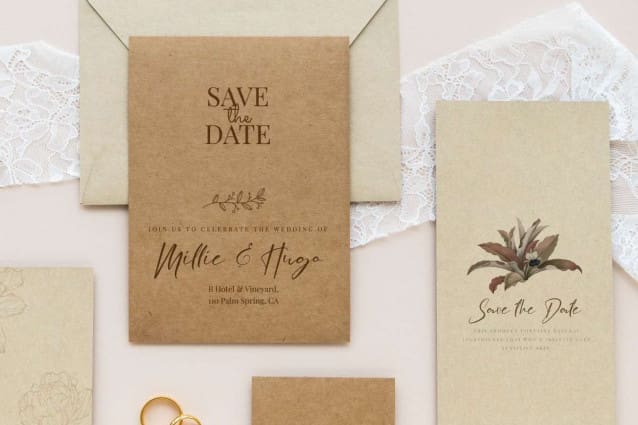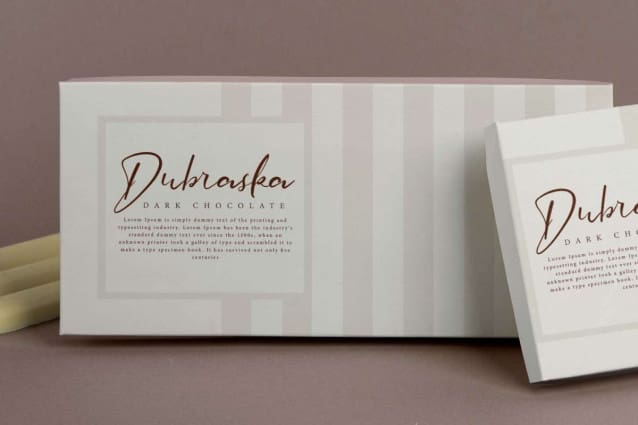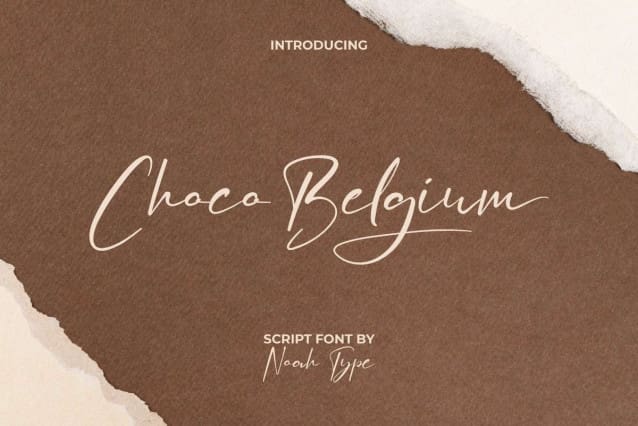
Choco Belgium Font
Choco Belgium Font, is a stylish handwriting script font with professional signature style. The strokes lines in this font look natural and beautiful for many designs you want to create. It will be suitable for any industries, such as bakery and pastry, café, cosmetic, event or wedding organizer, furniture, hotel and resort, printing, publishing, etc.
Choco Belgium Font includes full set of Uppercase and Lowercase Basic Characters, Numerals and Punctuation, Ligature, and Alternate characters. Get inspired and use this exclusive font in your various designs, such as business card, brand logo, brochure, custom design, invitation, product packaging, quote, screen printing, stationery, website, and more!